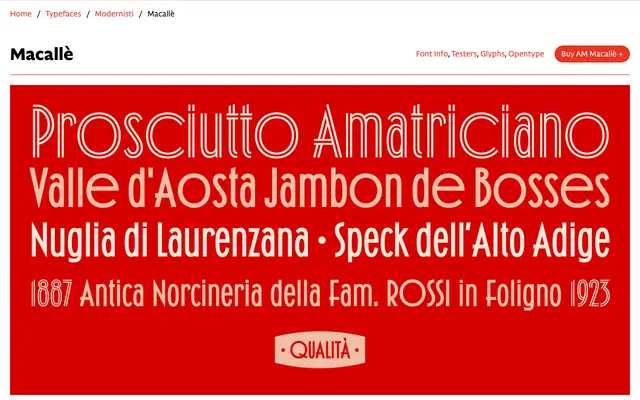
AM Macallè
CAST · Alessandro Colizzi · 2025
A digital revival of a bold Italian wood type from 1936, faithful to Xilografia Internazionale's Macallè with an inline variant and wide circular alternates accessed via OpenType stylistic sets.
Originally issued as wood type by Xilografia Internazionale of Legnago around 1936 and available up to 20-line sizes, the face is notable for its compressed proportions, very large x-height and Art Déco low crossbars that extend leftward beyond the stems. Designer Alessandro Colizzi's revival incorporates the former inline companion Adigrat as a stylistic set alongside a second set of wide, circular alternates for C, G and O, making the whole system more flexible than its historical source. The result suits poster and headline work where early-twentieth-century Italian graphic vernacular is the reference point.
A bold, compressed sanserif revival of a 1936 Italian wood type, featuring Art Déco details such as low crossbars that extend beyond stems and wide circular alternates; classified as display given its single weight, compressed proportions and decorative lineage.